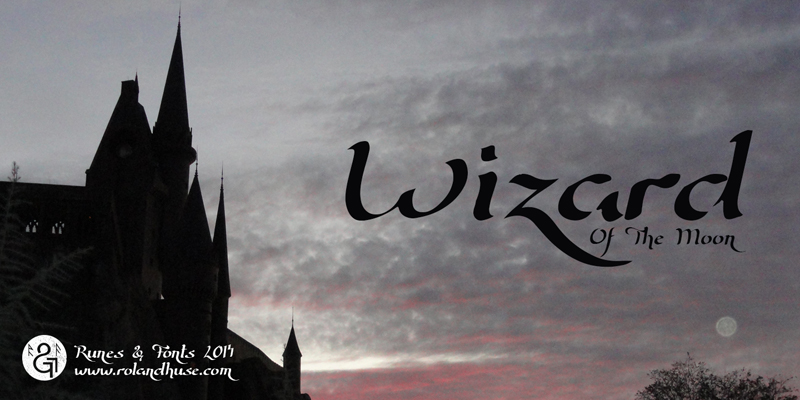
Preview and download Wizard Of The Moon Font. Created by Runes & Fonts in Script Various styles with Free for personal use license.
WIZARD OF THE MOON is a hand drawn calligraphy font. For further information feel free to contact me via myhandwritings@gmail.com also about the following: - Further characters or language extensions - Discovering kerning problems while using - Or any other question. This font is free for PERSONAL use only. For any commercial use (anything you make money from), you must send a paypal donation. You MAY NOT sell my fonts or claim them as your own. You MAY NOT edit or rename my fonts. You MAY redistribute my fonts if: 1. You credit me (Roland Huse). 2. Keep the READ ME file intact within the zip folder. 3. Provide a link back to my website (www.rolandhuse.com). Thank you & I hope you like this font, \m/ Roland http://www.rolandhuse.com https://www.facebook.com/pages/Runes-And-Fonts/123221817784772 |